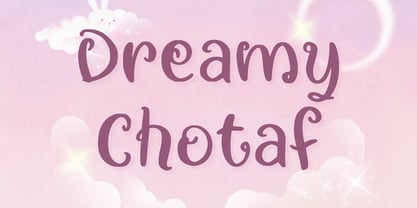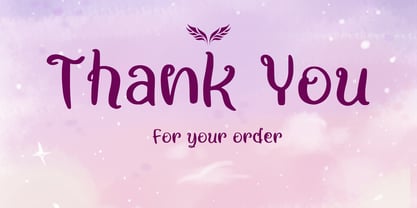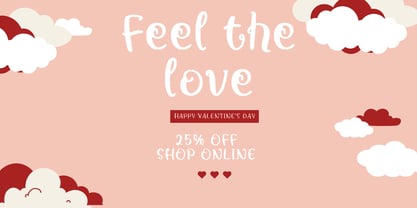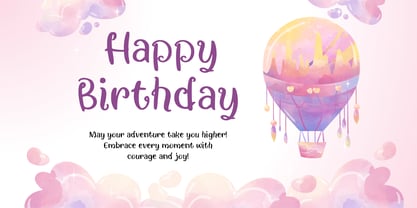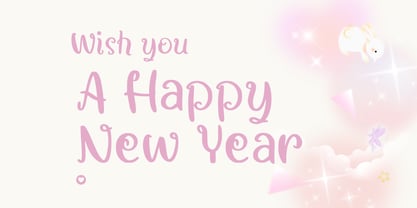
Dreamy Chotaf
by Aisyah
The Dreamy Chotaf Font Family was designed by Nur Aiysah Amalia and published by Aisyah. Dreamy Chotaf contains 1 styles. More about this family
Introducing the enchanting Dreamy font, elegantly bedecked in whimsical curls. Exuding an air of distinction, it flawlessly elevates your specialized greetings, delivering them as extraordinary pieces ignited with uniqueness and charm. Perfect for creating moments that stand out, Dreamy font is the ideal tool for transforming your messages into visual poetry that encapsulates your special sentiment for an elevated expression. A font that speaks volumes, Dreamy ensures your greetings will be anything but ordinary.
Designers: Nur Aiysah Amalia
Foundry: Aisyah